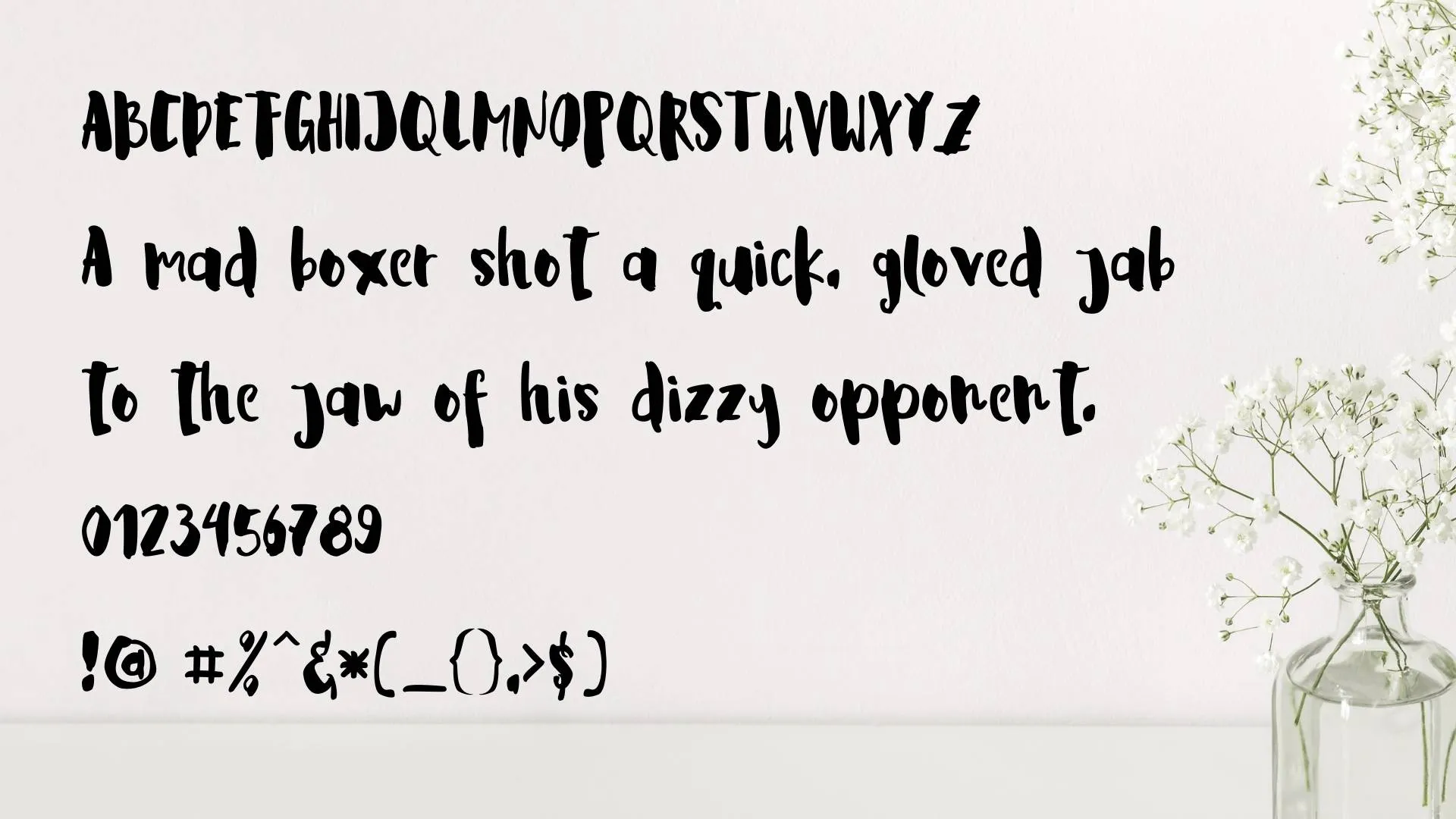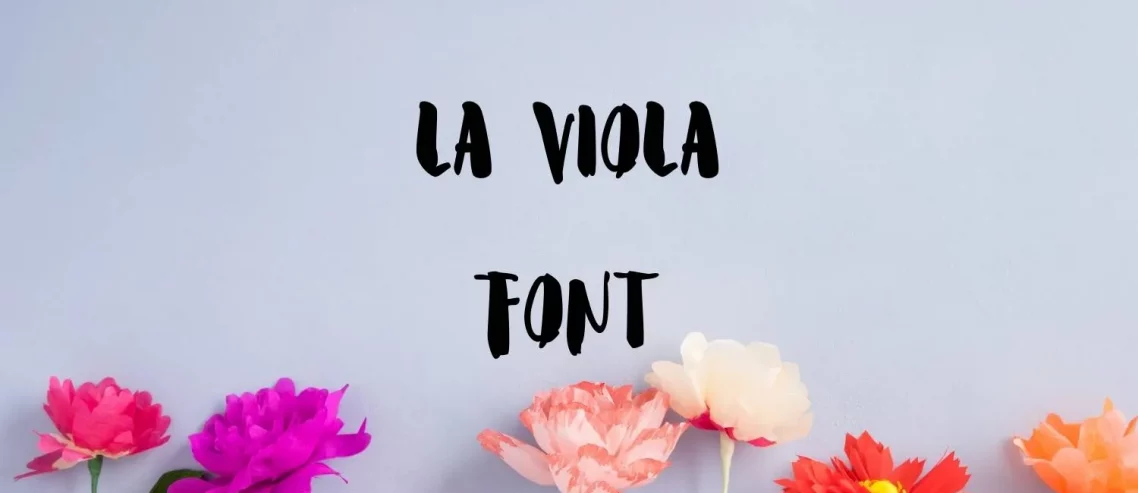
La Viola Font is designed by a very famous designer named “Mats-Peter Forss”.This typeface is always best for your design. This font is also free for commercial use.
La Viola font is a display font that comes in combination with brush shape. This font has come in regular and italic that also provide uppercase, lowercase, glyphs, and some special characters.
| Designer | Mats-Peter Forss |
| Style | Display |